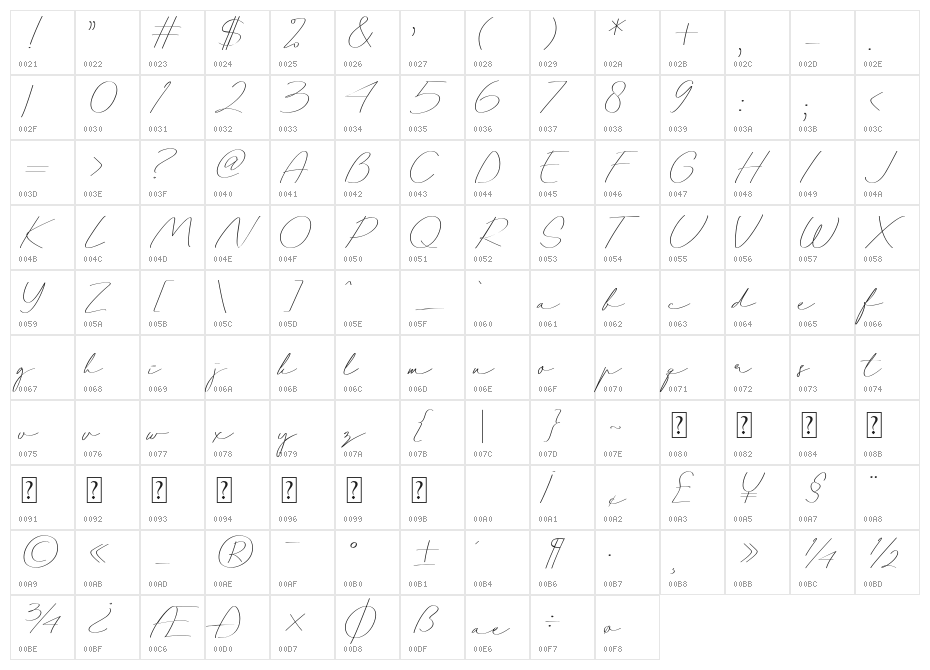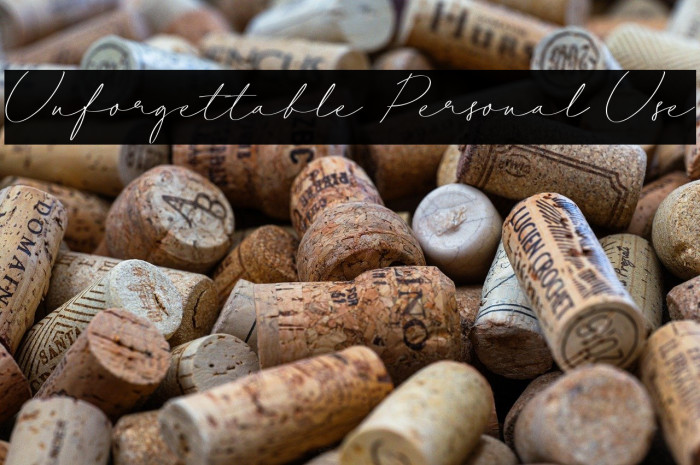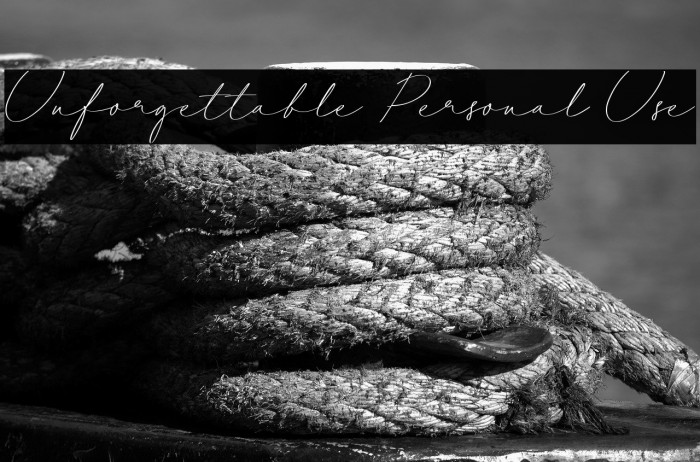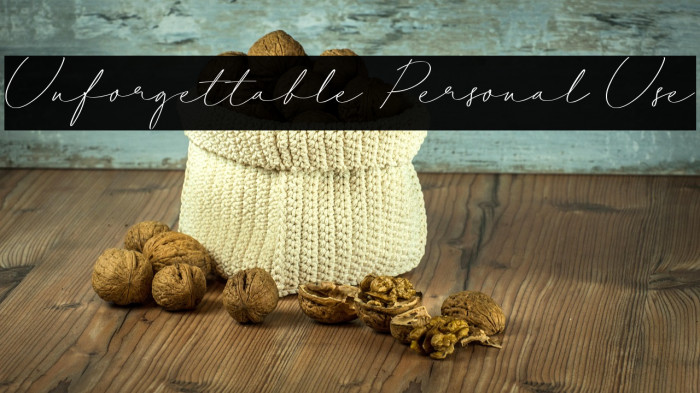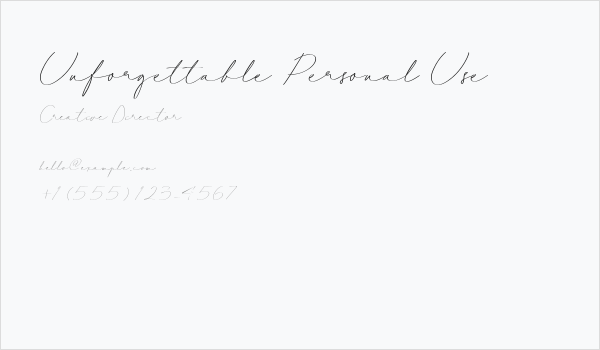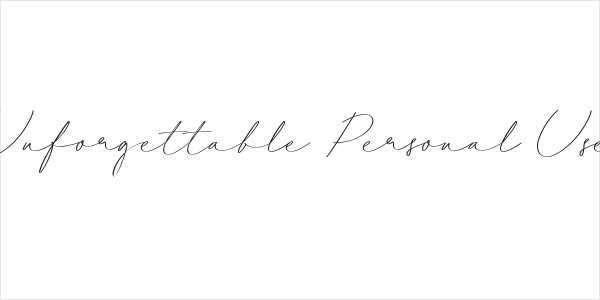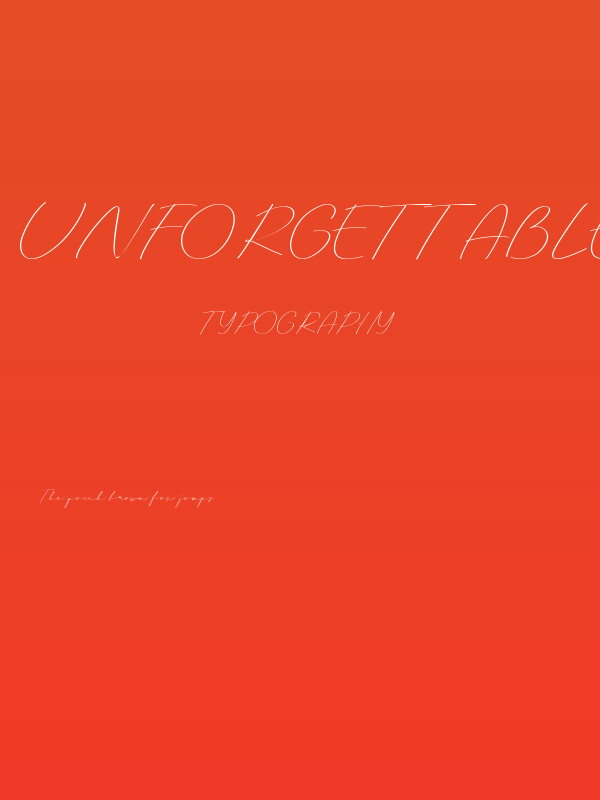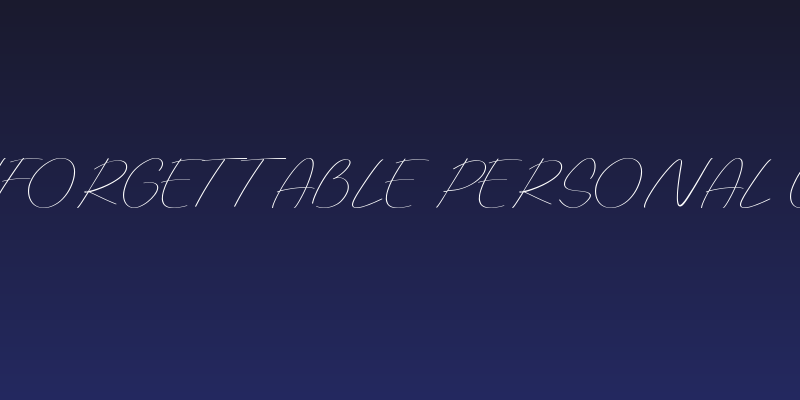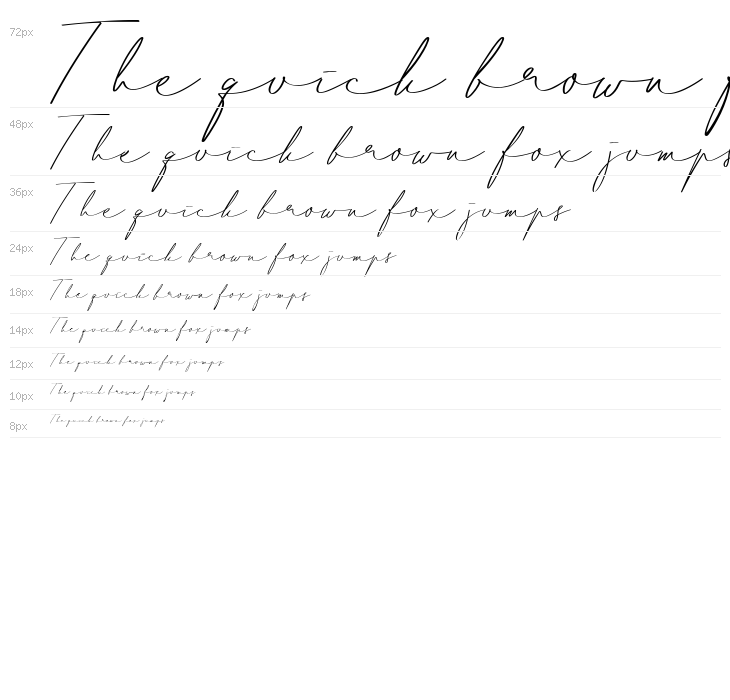
Unforgettable Personal Use Font
Unforgettable Personal Use Description
This font exhibits a graceful and flowing script style, characterized by its elegant and fluid letterforms. The uppercase letters are tall and slender, with a slight slant that adds a touch of sophistication. The lowercase letters are more connected, enhancing the cursive nature of the font. The numerals maintain the same elegant style, providing a cohesive look throughout. The special characters are designed to match the overall aesthetic, ensuring consistency. This font is perfect for projects that require a personal and stylish touch.
| Proposed Projects | Ideal for wedding invitations, personal branding, elegant stationery, and artistic projects. |